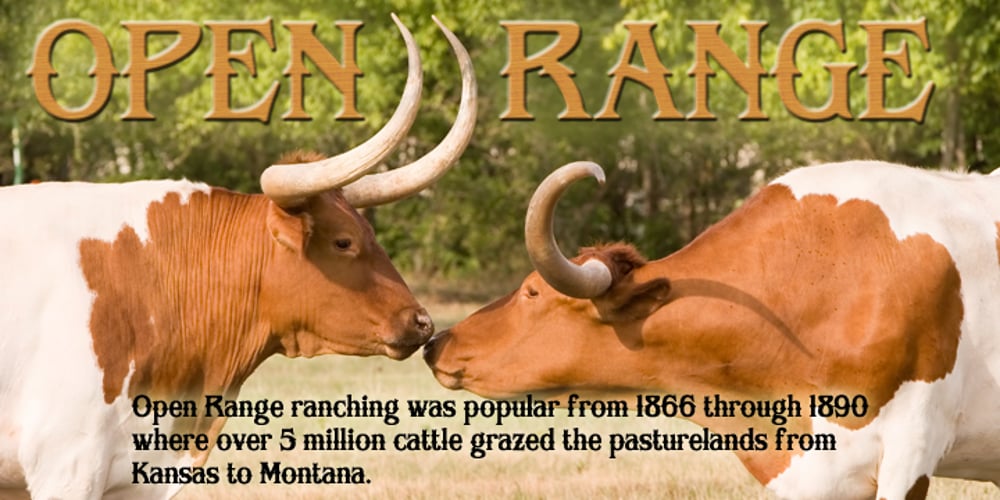
Open Range Font Family was designed by Michael Hagemann and published by FontMesa. Open Range contains 1 styles and family package options. Open Range is a new font design based on an old classics sans serif font from the 1800s. Some may say that this font looks like a western version of the more modern Benguiat but samples of lettering from the 1800s show a similar design to Benguiat and may have been the inspiration for that font.